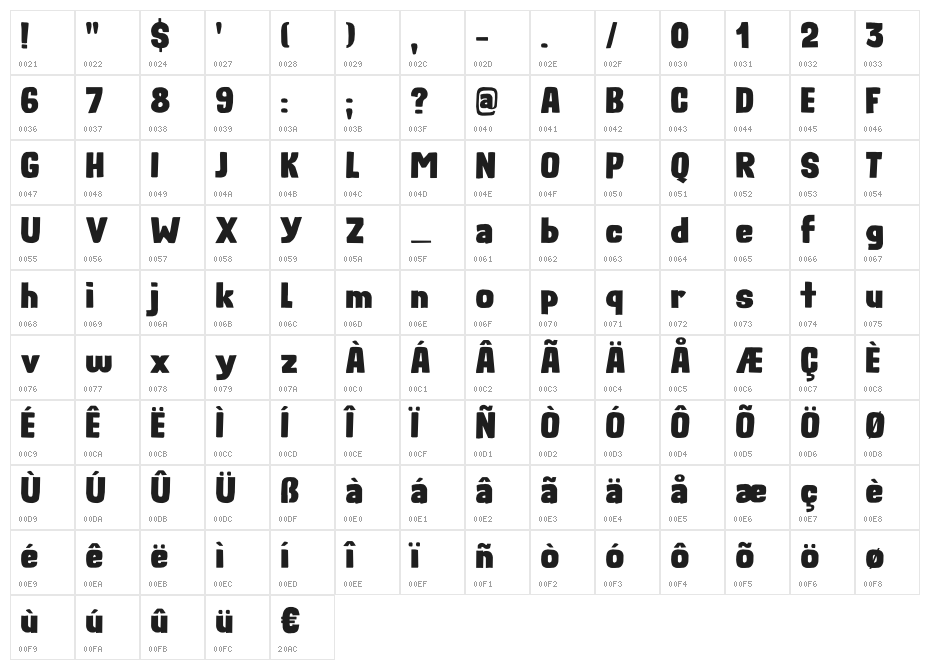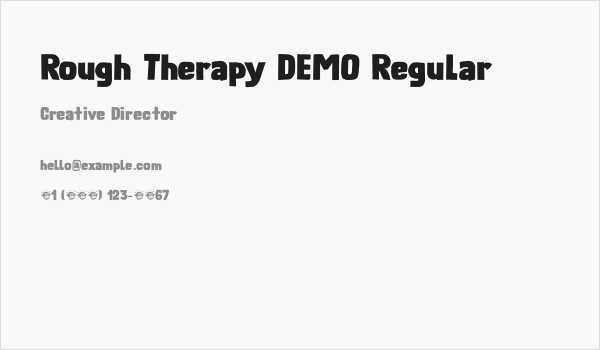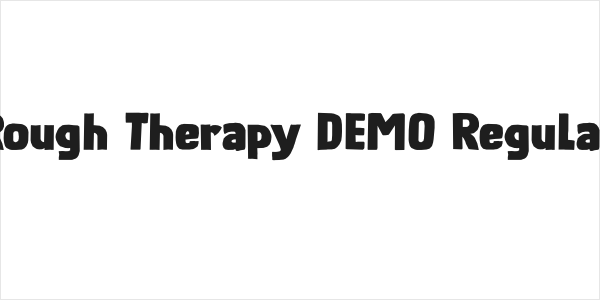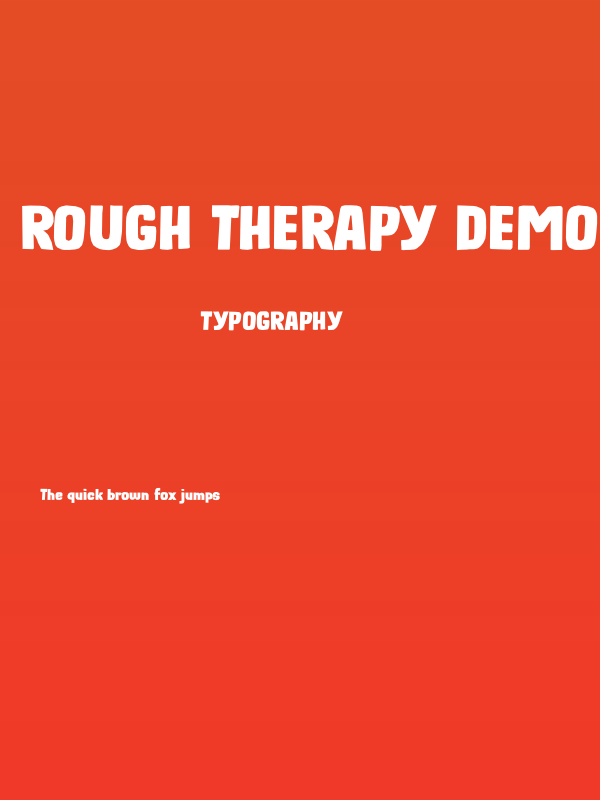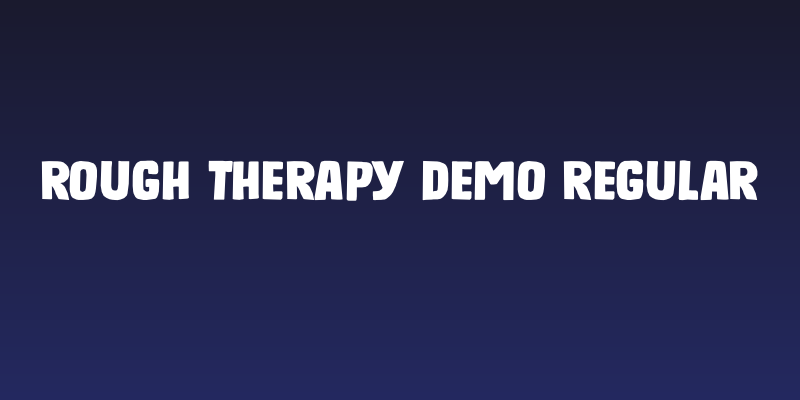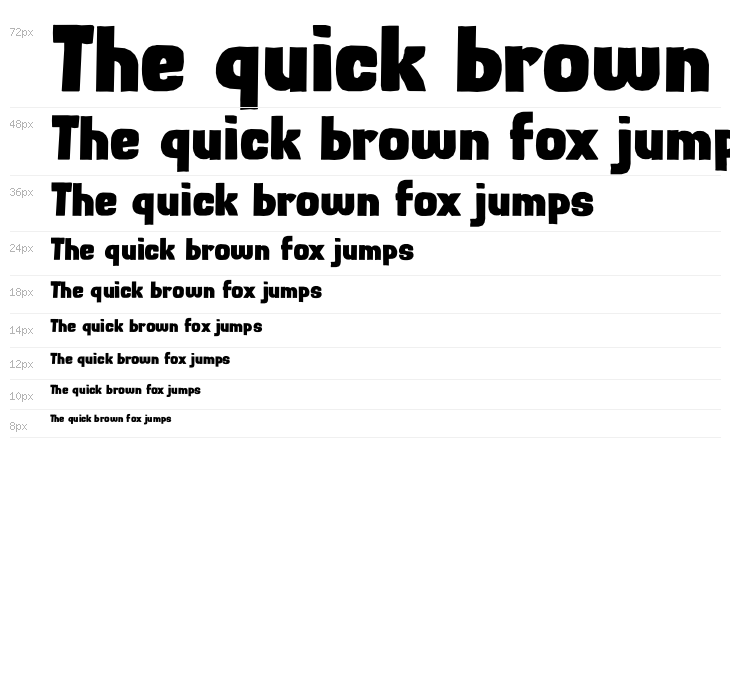
Rough Therapy DEMO Regular Font
Rough Therapy DEMO Regular Description
This font features a bold and playful design with a hand-drawn aesthetic. The characters are thick and slightly irregular, giving them a whimsical and informal appearance. The uppercase and lowercase letters maintain a consistent style, with rounded edges and a slightly uneven baseline, adding to the casual feel. The numbers and special characters follow the same playful design, making the font suitable for creative and fun projects. The overall look is energetic and lively, perfect for capturing attention in a lighthearted manner.